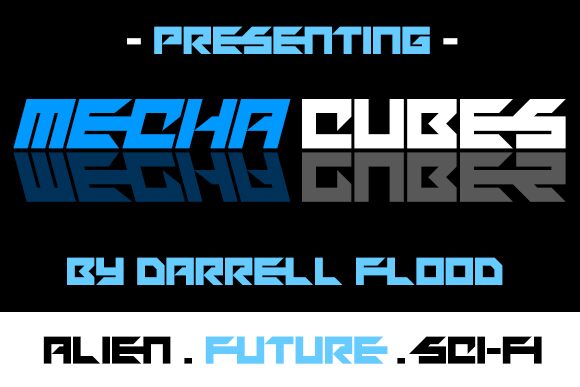
Mechacubes Italic
Mechacubes Italic is a bold, expanded display font that embodies a striking techno aesthetic. Designed by Hawtpixel, this font presents a captivating blend of angular lines and geometric precision, evoking a sense of futuristic dynamism.
The italic style adds a subtle, forward-leaning movement, further amplifying the font's inherent energy. Mechacubes Italic's versatility lends itself to a wide range of design applications, from gritty industrial branding to sleek technological interfaces. Its bold presence commands attention, making it an excellent choice for headlines, logos, and other high-impact design elements.
The font's unique character and technological flair make it a versatile tool for designers seeking to craft visually striking, future-facing compositions.